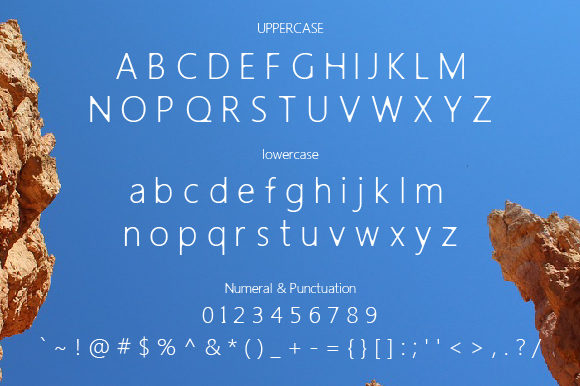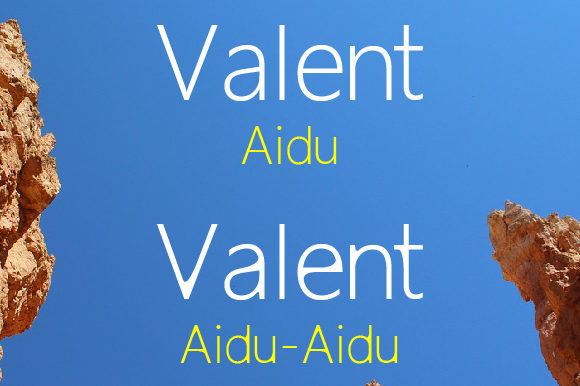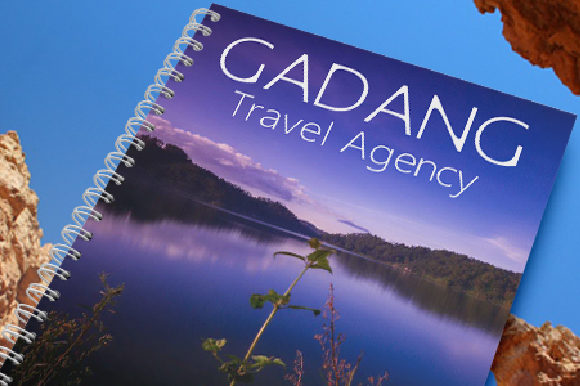
Aidu Font: Elevate Your Designs with a Simple yet Modern Typeface
In the world of typography, fonts play a crucial role in conveying the tone and personality of a design. For designers and crafters looking for a versatile and stylish typeface, the Aidu Font is an excellent choice. This simple yet modern font is perfect for creating classy, fashionable, retro, funky, and unique designs that stand out from the crowd.
The Aidu Font: A Brief Overview
The Aidu Font is a clean and elegant typeface that boasts a modern aesthetic. Its simplicity makes it an excellent choice for designers who want to add a touch of sophistication to their work. The font’s versatility allows it to be used in a wide range of design applications, from fashion and beauty to lifestyle and technology.
Key Features of the Aidu Font
- Simple yet Modern Design: The Aidu Font features a clean and minimalist design that gives it a modern look and feel.
- Highly Versatile: This font can be used for a variety of design applications, including classy, fashionable, retro, funky, and unique designs.
- Elegant and Sophisticated: The Aidu Font’s elegant design makes it perfect for creating sophisticated and high-end designs.
- Easy to Read: The font’s clear and legible design ensures that your text is easy to read, making it perfect for body text and headlines.
Design Applications for the Aidu Font
The Aidu Font is an excellent choice for a wide range of design applications, including:
- Fashion and Beauty: Use the Aidu Font to create stylish and sophisticated designs for fashion and beauty brands.
- Lifestyle and Technology: This font is perfect for creating modern and sleek designs for lifestyle and technology brands.
- Retro and Funky Designs: The Aidu Font’s versatility allows it to be used for retro and funky designs, adding a touch of playfulness to your work.
- Unique and Creative Designs: This font is ideal for designers who want to create unique and creative designs that stand out from the crowd.
Tips for Using the Aidu Font
To get the most out of the Aidu Font, here are some tips to keep in mind:
- Pair it with Other Fonts: Experiment with pairing the Aidu Font with other fonts to create a unique and visually appealing design.
- Use it for Headlines and Body Text: The Aidu Font is perfect for both headlines and body text, making it a versatile choice for designers.
- Experiment with Colors and Textures: Don’t be afraid to experiment with different colors and textures to add depth and interest to your design.
The Aidu Font is a simple yet modern typeface that is perfect for designers and crafters looking for a versatile and stylish font. Its elegance and sophistication make it an excellent choice for a wide range of design applications, from fashion and beauty to lifestyle and technology. With its ease of use and versatility, the Aidu Font is sure to become a go-to choice for designers who want to elevate their designs and create something truly special.
Get Creative with the Aidu Font
Whether you’re a seasoned designer or just starting out, the Aidu Font is an excellent choice for anyone looking to add a touch of sophistication and style to their work. So why not give it a try and see how you can use the Aidu Font to take your designs to the next level?